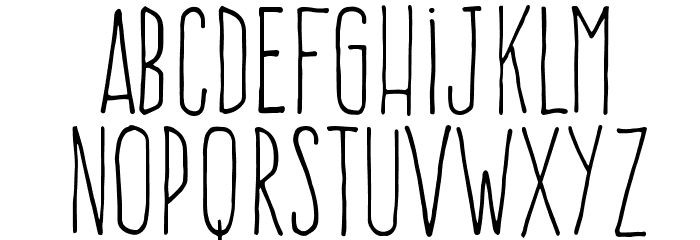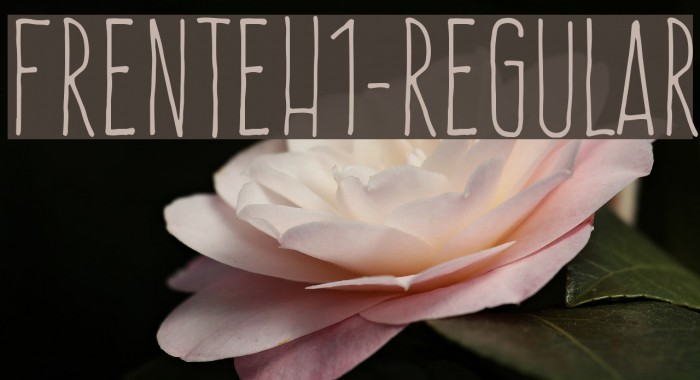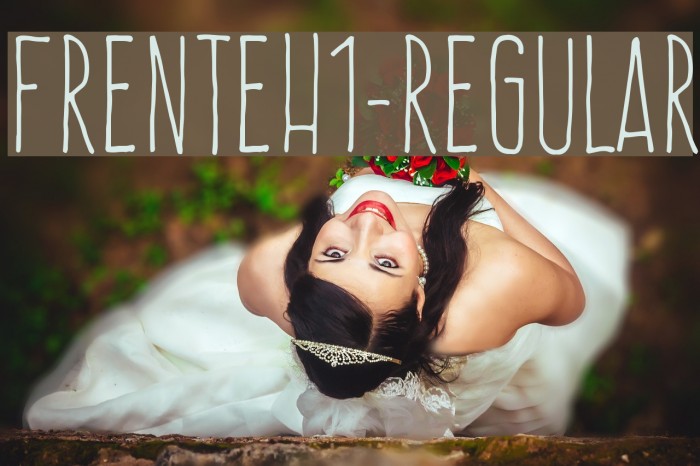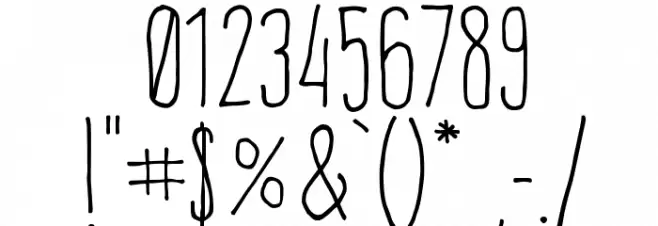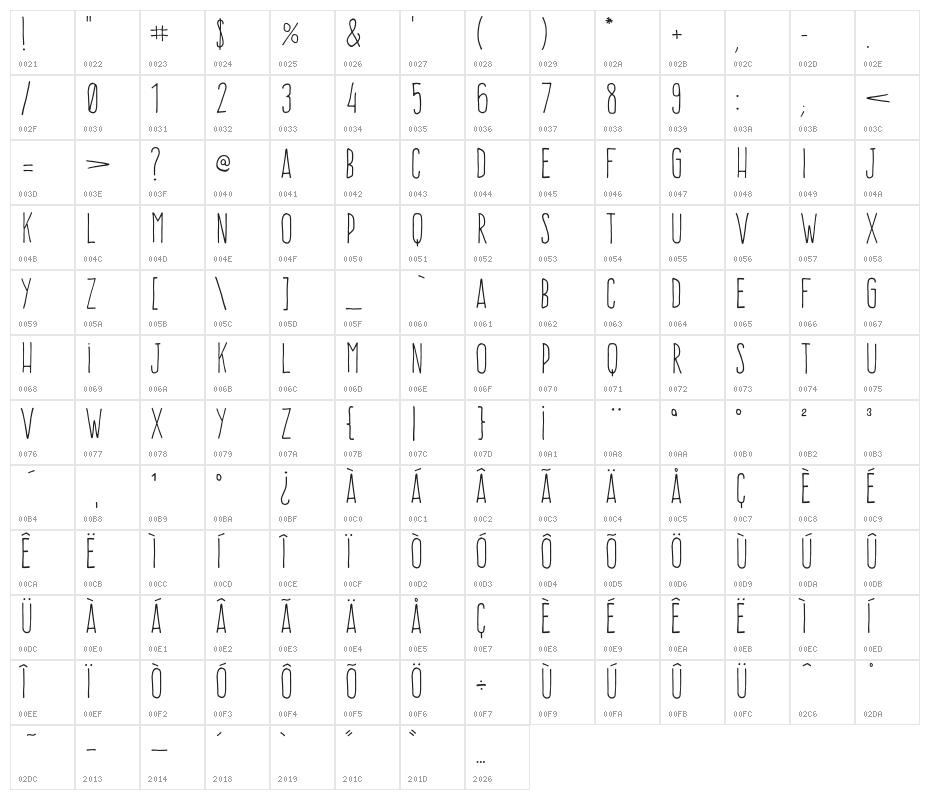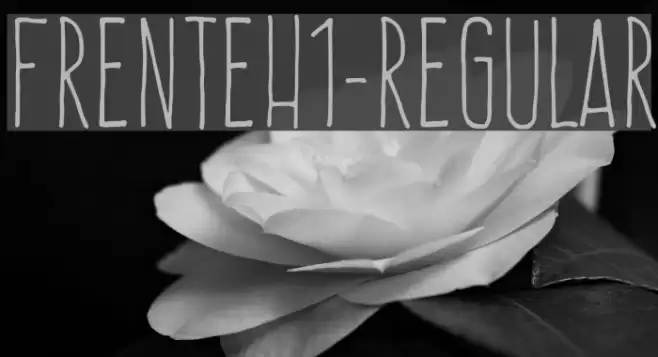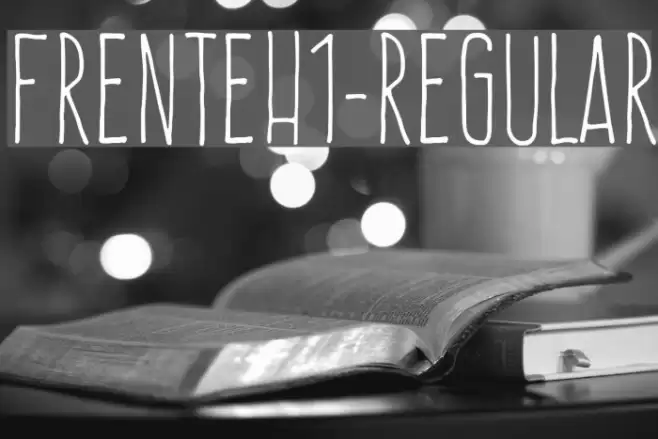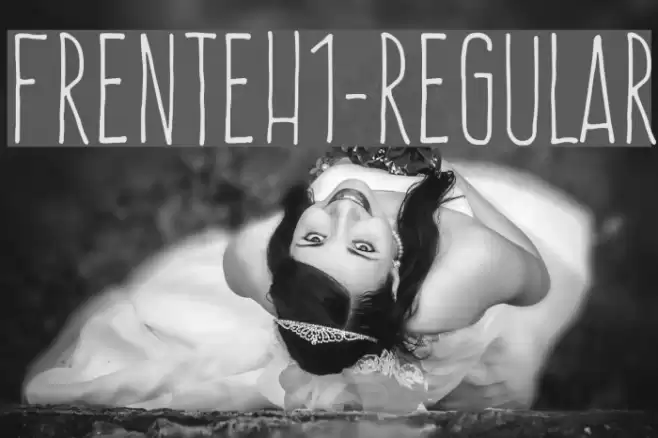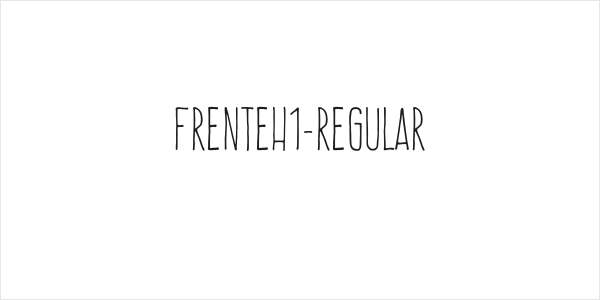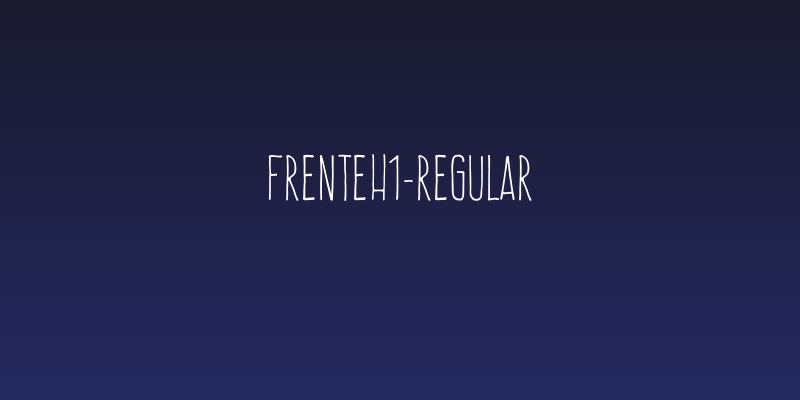
FrenteH1-Regular Font
This font features a hand-drawn, organic style that gives it a unique and personal touch. The characters are tall and narrow, with a slightly irregular stroke that adds to its charm. The uppercase and lowercase letters maintain a consistent height, contributing to a cohesive look. The numerals and special characters follow the same design principles, ensuring uniformity across all glyphs. This font's playful yet sophisticated appearance makes it suitable for a variety of creative projects.
A hand-drawn, narrow font with a playful and organic style.
- Proposed Projects: Ideal for greeting cards, invitations, posters, and branding projects that require a personal touch.